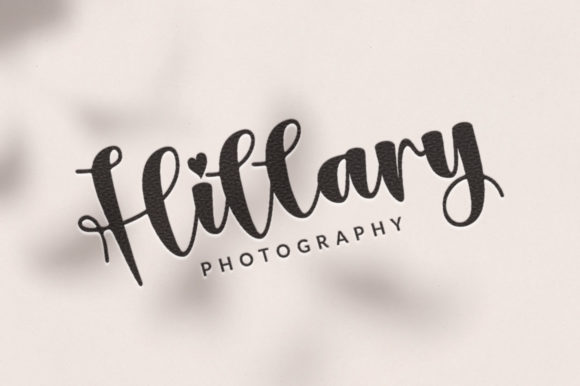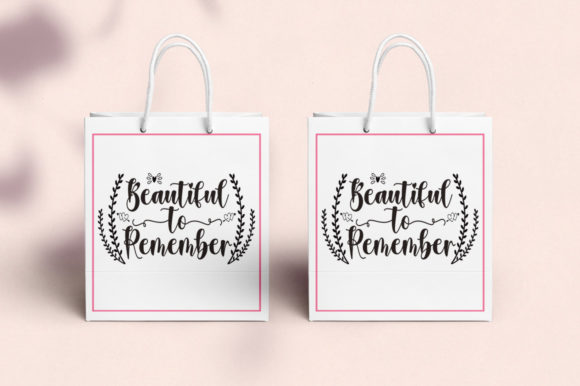
Hello Lovely Duo Font
db-ku.com - Script & Handwritten -- Hello Lovely Duo is a delicate and sweet duo font (script and sans serif). This font is PUA encoded which means you can access all of the glyphs and swashes with ease!